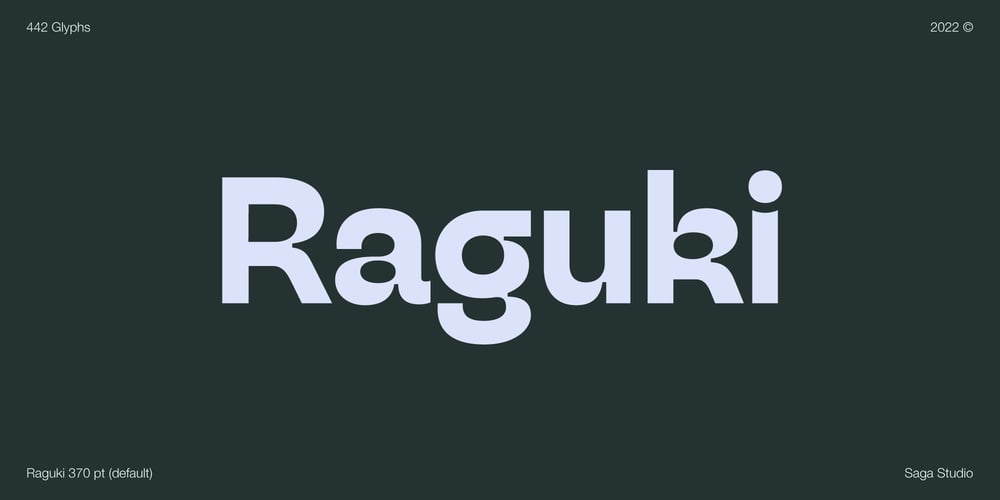
Raguki Font Family was designed by Calum Rudd and published by Saga Studio. Raguki contains 1 styles and family package options. Raguki is a sans serif display font with a modern and unique style. Aesthetic letterforms with stylistic ink traps make this font have bags of personality. Raguki has open-type features (salt and ss01) that enable the user to transform the letterforms to create different designs.We hope you enjoy it.Saga Studio